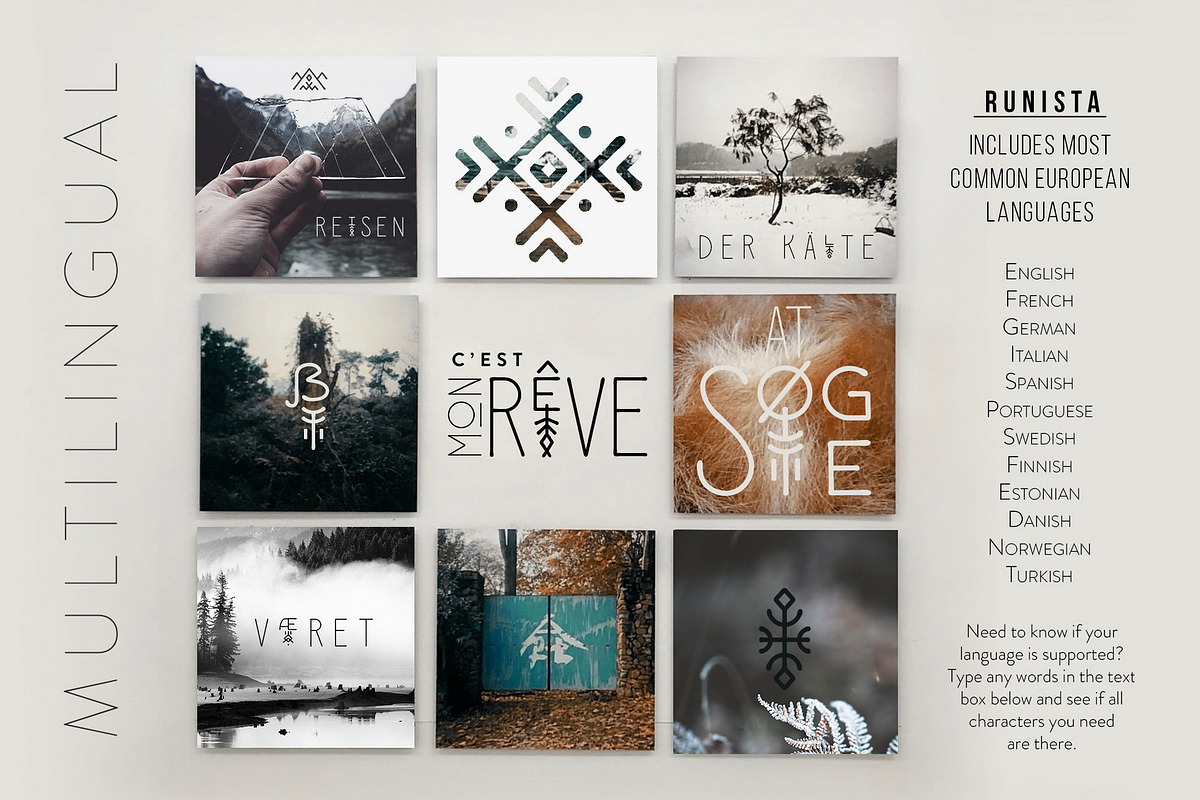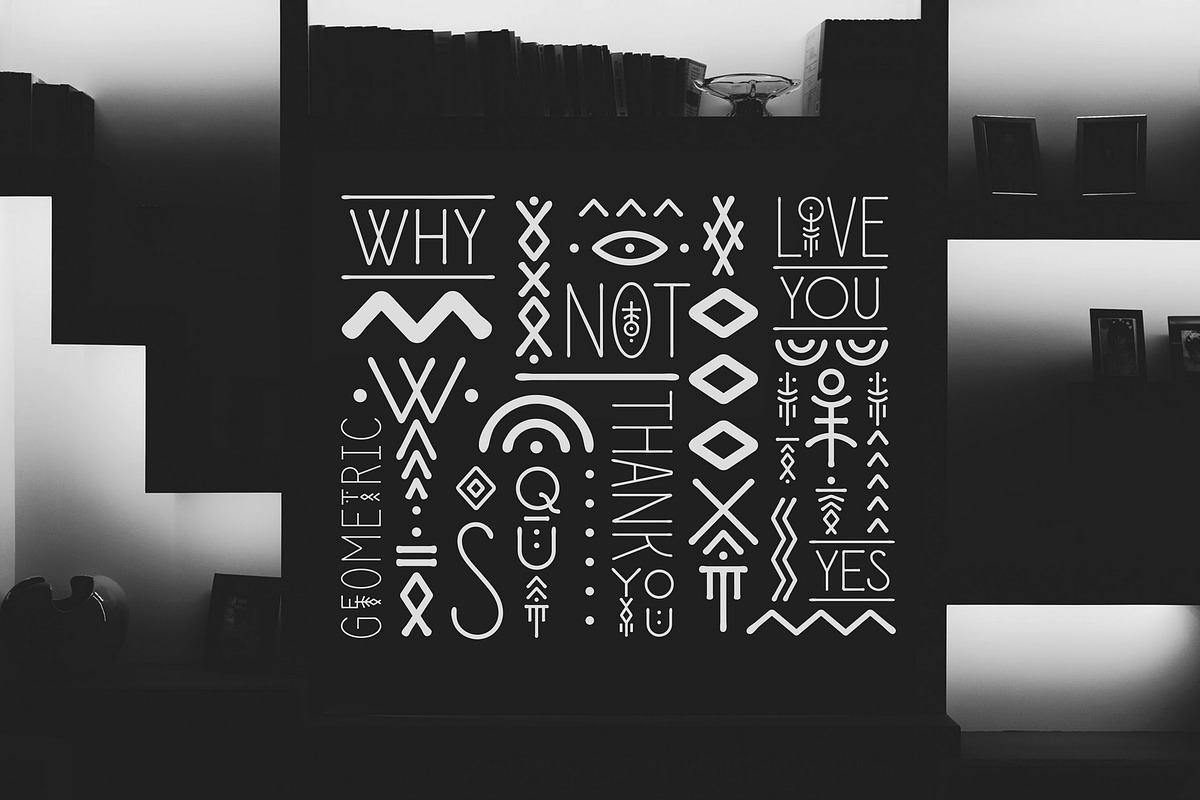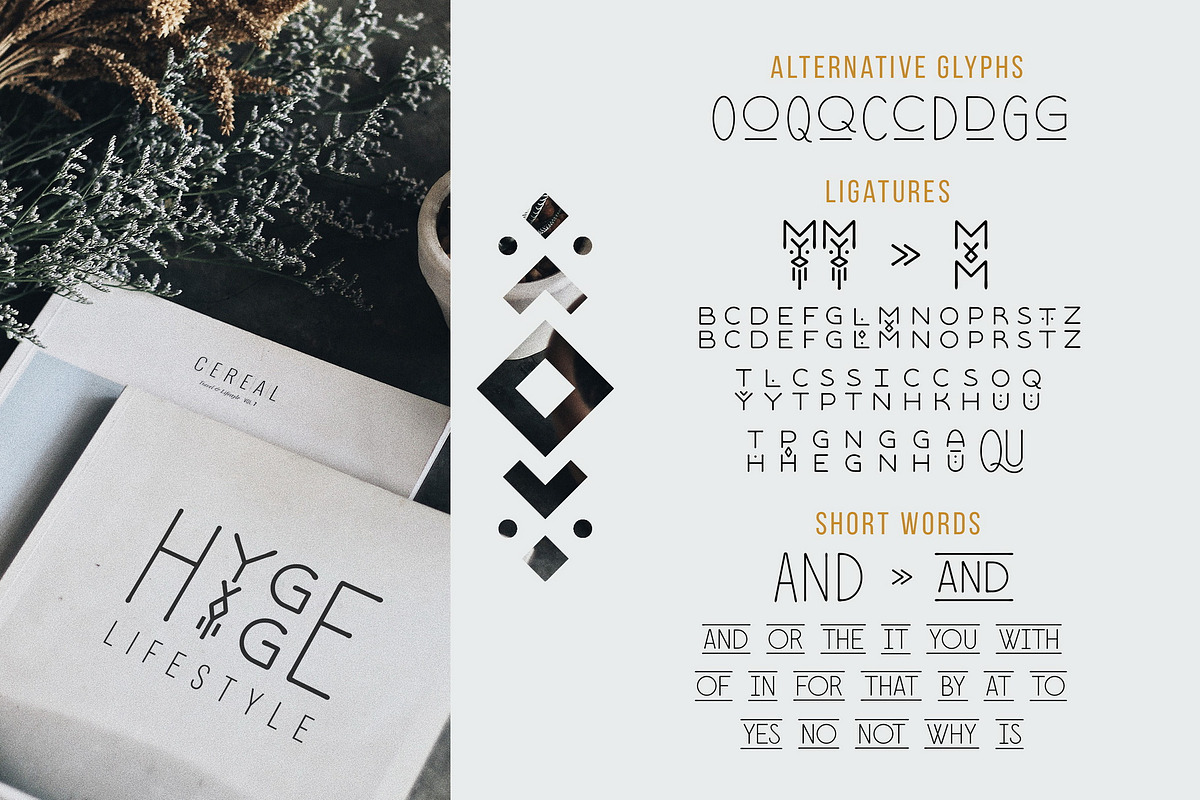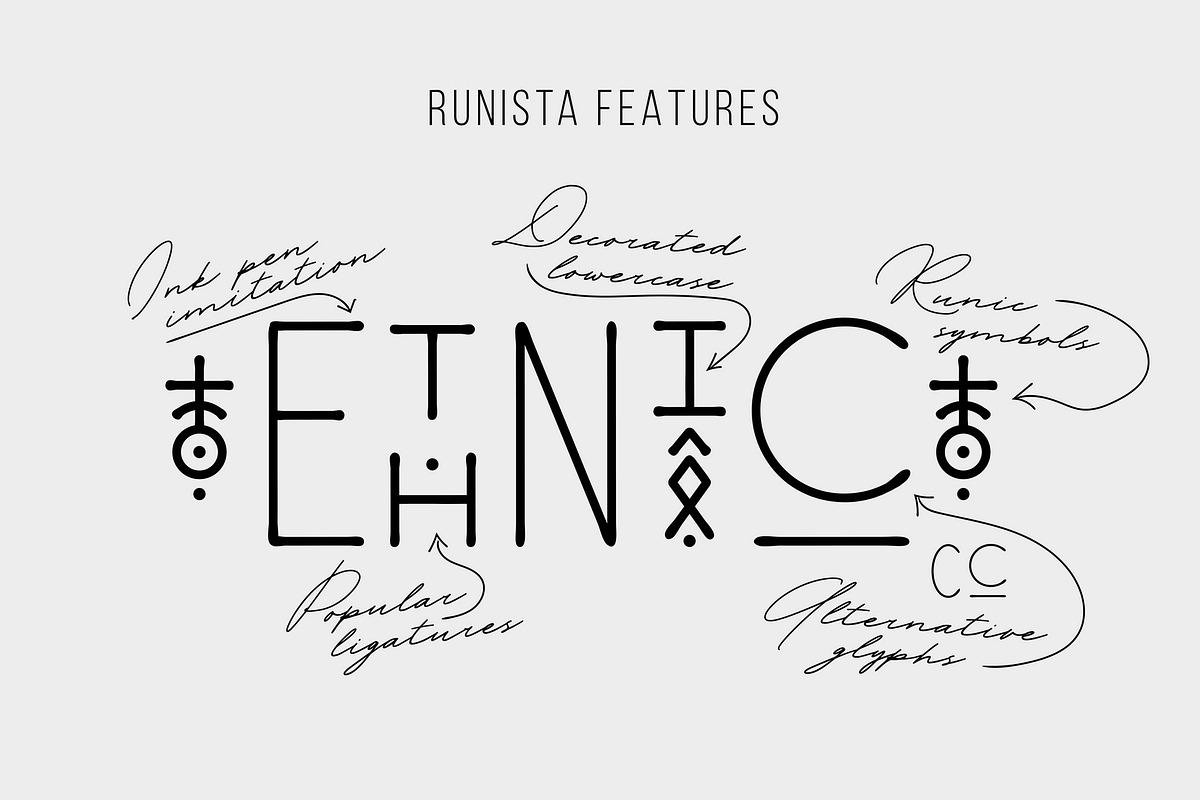
Runista - Thin Line Geometric Font
I would like to introduce my new Thin Line Geometric Font RUNISTA. Runista is a linear font in folk style, lowercase is decorated with geometric elements. The typeface includes Decorative and Symbol versions. Letters and symbols are perfectly combined with each other. The font is easy to use in various design programs or without any program.
Runista Typeface is suitable for lettering posters, music albums, tattoos and photo overlays in hipster style. The font is also suitable for interior design and city identity. The font works great both for printing clothes and craft products branding and packaging. Also use individual letters and symbols to create logos and monograms.
Runista Decorative contains stylistic alternates for letters O, Q, C, D, G and the most popular ligatures: bb, cc, dd, ee, ff, gg, ll, mm, nn, oo, pp, rr, ss, tt, zz, ty, ly, ct, sp, st, in, ch, ck, sh, ou, qu, th, ph, ge, ng, gn, gh, au QU.
The font has extensive language support, it includes English, French, German, Italian, Spanish, Portuguese, Danish, Norwegian, Swedish, Finnish, Estonian, Turkish. Need to know if your language is supported? Type any words in the text box below and see if all characters you need are there.